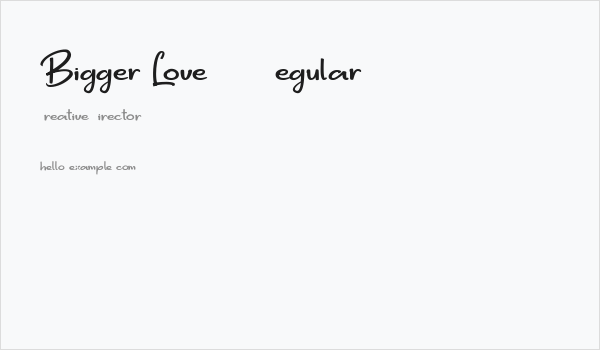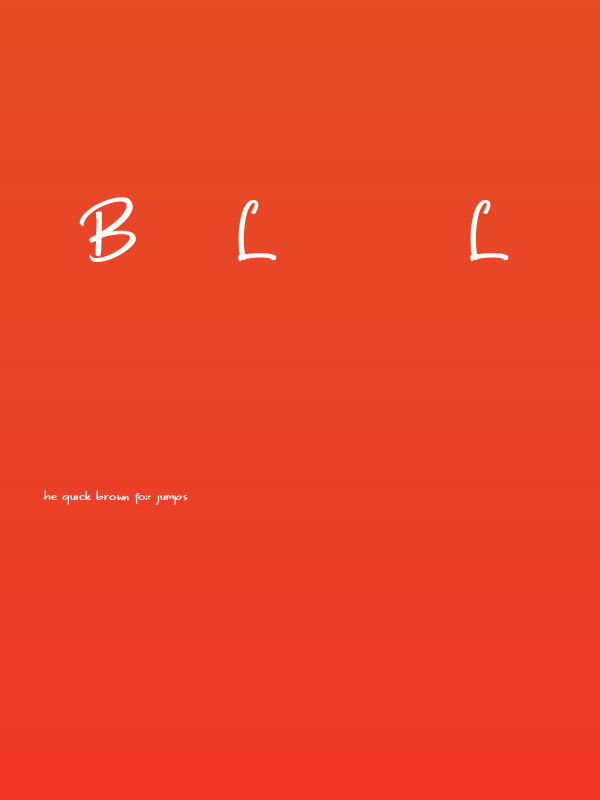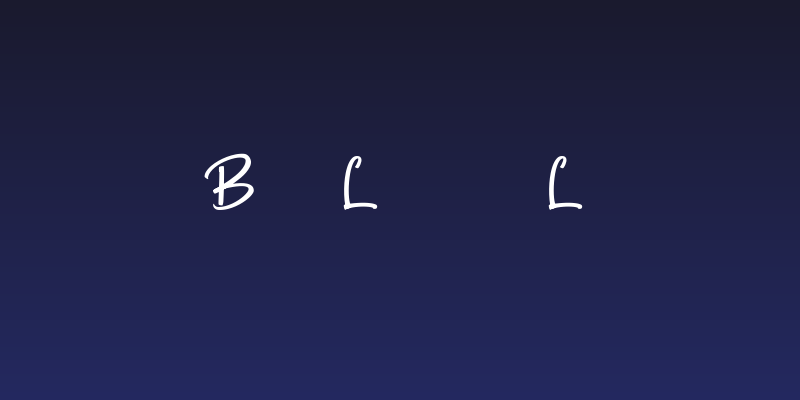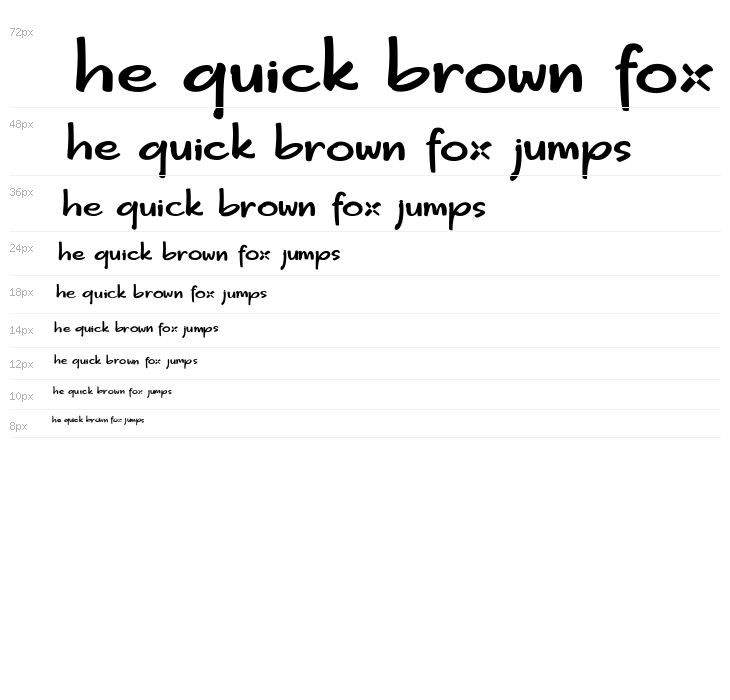
Bigger Love DEMO Regular Font
Bigger Love DEMO Regular Description
This font features a playful and casual handwritten style, characterized by smooth curves and a slightly informal appearance. The letters are well-rounded with a consistent stroke width, giving it a friendly and approachable look. The uppercase letters are bold and prominent, while the lowercase letters maintain a uniform height, contributing to a cohesive and balanced design. The font's overall aesthetic is modern yet relaxed, making it suitable for a variety of creative applications. Its legibility is enhanced by the clear distinction between characters, and the spacing is well-proportioned to ensure readability.
| Use Case | Logos, Headlines, Social Media Graphics |
| Proposed Projects | Ideal for greeting cards, invitations, personal branding, and social media graphics. |